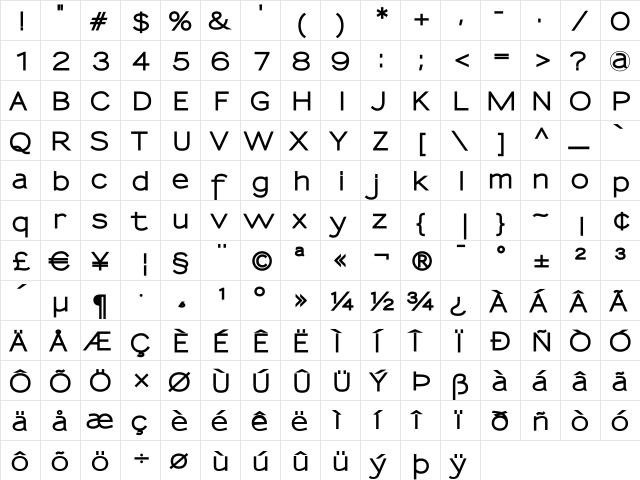
Sansumi-ExtraBold Regular
Design Context for Sansumi-ExtraBold Typeface
Sansumi-ExtraBold offers clean, dependable letterforms without strong stylistic allegiance, making it a practical choice for designers who need flexibility. The heavy weight commands attention and anchors typographic hierarchies.